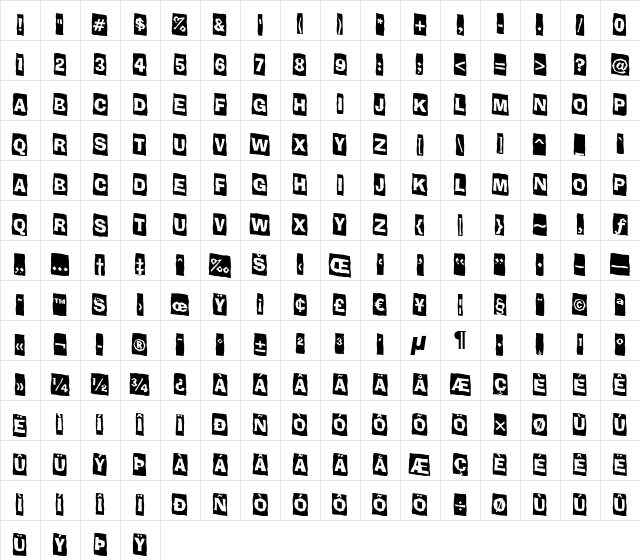
a_BrokerCmDn Regular
| Designer | W.Chufarofsky & M.Slutsker |
Design Context for a_BrokerCmDn Typeface
a_BrokerCmDn is a composed and adaptable typeface that performs quietly and consistently across a wide range of design contexts.